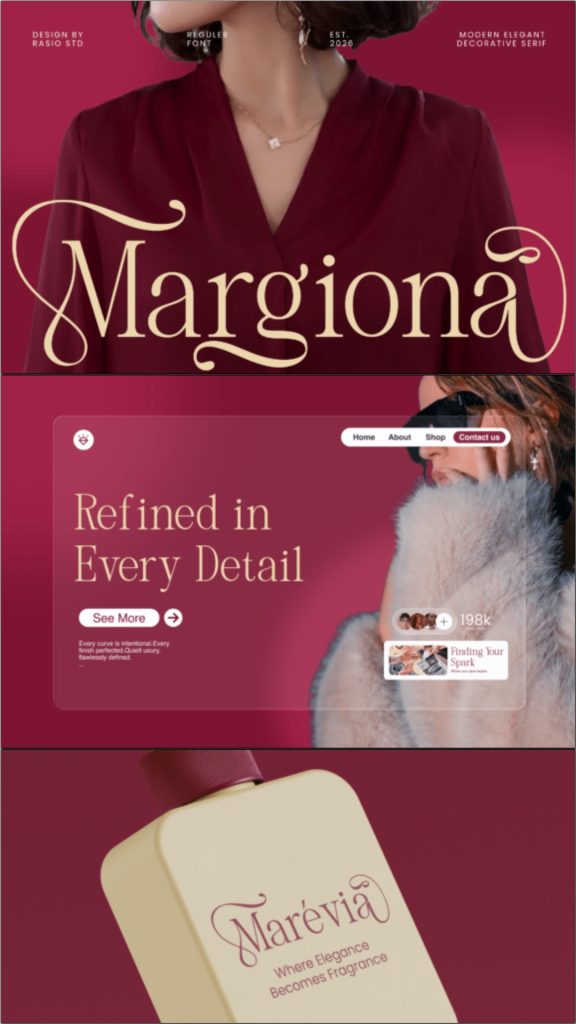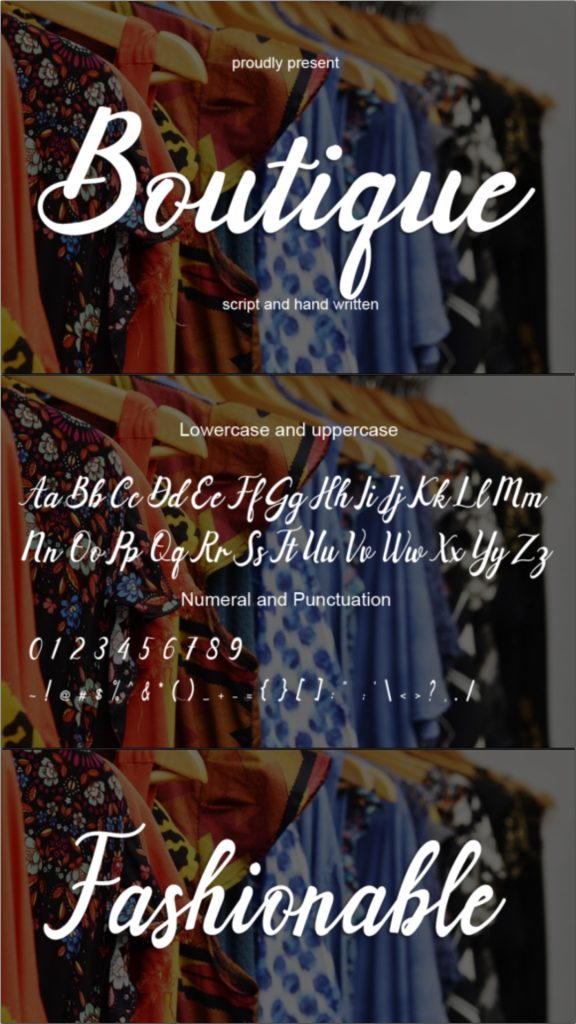
What Makes Fashion Boutique Logo Fonts Look Elegant?
Fashion boutique logo fonts can completely change how a shop feels before someone even looks at the clothes. I always notice this with boutique branding: the logo doesn’t need to be complicated if the typography already carries the right mood.
A refined serif can make a boutique feel expensive. A soft script can feel feminine and personal. A high-contrast display font can give that editorial, fashion-magazine energy. The trick is choosing a font that looks stylish but still stays readable on tags, packaging, storefront signs, Instagram posts, and website headers.
For this list, I focused on luxury logo fonts, elegant serif fonts, feminine logo fonts, boutique branding fonts, and fashion typography that actually makes sense for real fashion shop branding.
12 Fashion Boutique Logo Fonts for Stylish Branding
1. Sivana
Sivana has that polished boutique feel right away. It mixes classic elegance with a modern fashion edge, mostly through its graceful curves, refined serif details, and slightly dramatic letterforms.
I like Sivana for:
- Women’s fashion boutiques
- Bridal fashion brands
- Luxury accessories stores
- Beauty and skincare boutiques
What makes it useful is that it feels upscale without becoming too decorative. Some luxury fonts look beautiful in previews but get messy inside a real logo. Sivana stays fairly clean, especially when given enough spacing.
2. Konxer
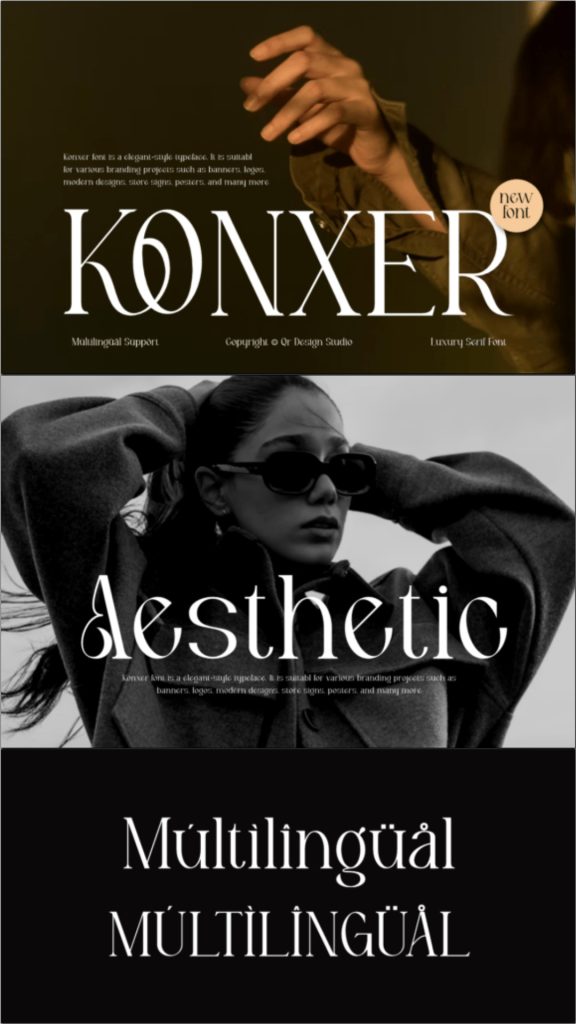
Konxer feels more editorial. It has the kind of high-contrast serif styling you’d expect to see around couture branding, jewelry packaging, or a fashion magazine cover.
Best for:
- Couture fashion houses
- Jewelry boutiques
- Designer clothing brands
- Premium fragrance labels
It’s a stronger personality font, so I’d use it when the boutique needs to feel bold, fashionable, and a little more runway-inspired.
3. Glojean
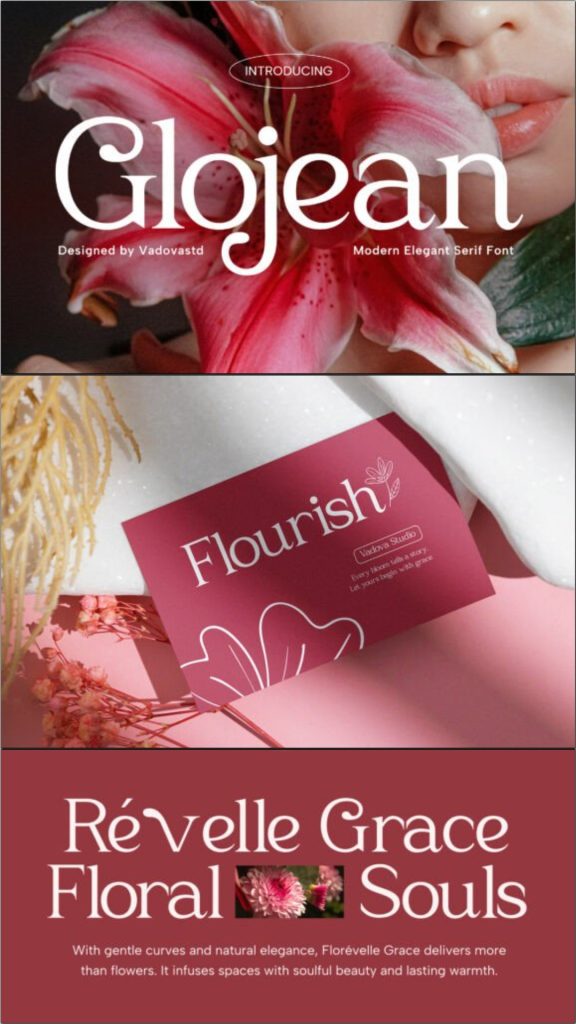
Glojean is softer and more versatile. The letterforms feel elegant, but not overly formal. That makes it a good option for boutique shops that want something modern, feminine, and clean.
I’d use Glojean for:
- Contemporary women’s boutiques
- Lifestyle brands
- Beauty boutiques
- Elegant online fashion stores
It has enough refinement for premium branding, but it doesn’t lock the brand into one very specific style. That’s useful if the shop may expand into accessories, beauty, or lifestyle products later.
4. Glamor
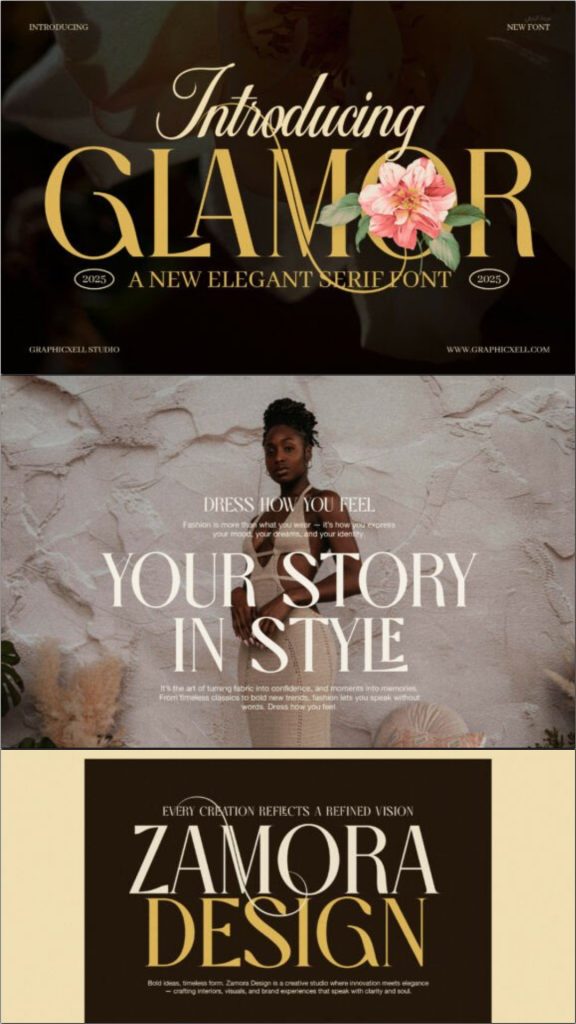
Glamor is definitely more dramatic. The name fits. It has high contrast, elegant curves, and that polished luxury feel that works well for fashion logos with a premium tone.
Perfect for:
- Luxury boutiques
- Fashion editorials
- Designer showrooms
- Premium retail brands
This is more of a display typeface than an everyday font. I’d keep it for the main logo, headlines, packaging accents, or social media graphics rather than long text.
5. Olde Victorian
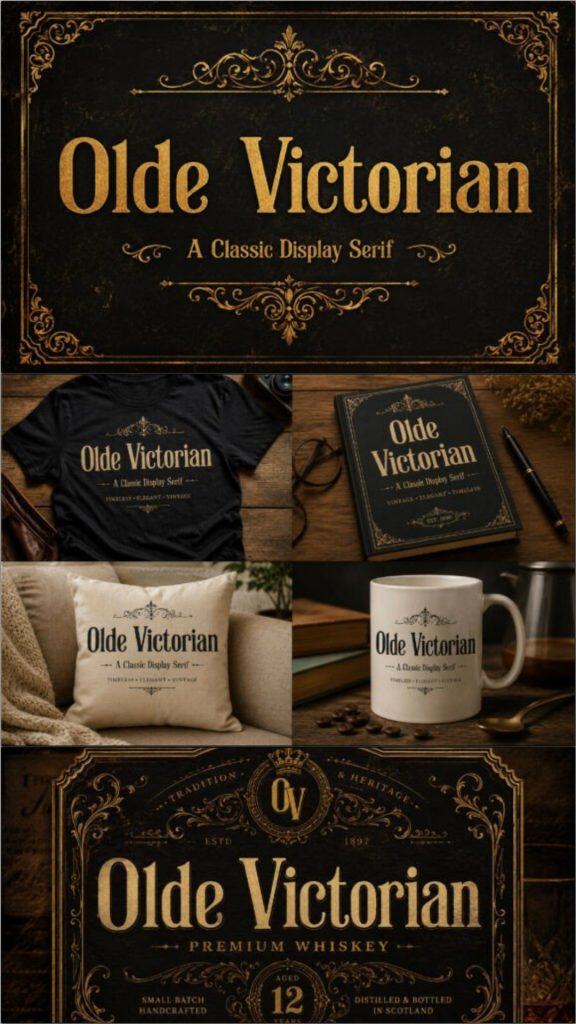
Olde Victorian leans into vintage elegance. It has a heritage feel, which can be beautiful for boutiques built around craftsmanship, tailoring, classic silhouettes, or antique-inspired styling.
Good for:
- Vintage fashion boutiques
- Heritage clothing brands
- Luxury tailoring businesses
- Antique-inspired retail concepts
This kind of font needs careful use. Too much decoration can feel heavy, but in the right logo layout, it creates a strong sense of tradition and character.
6. Velique
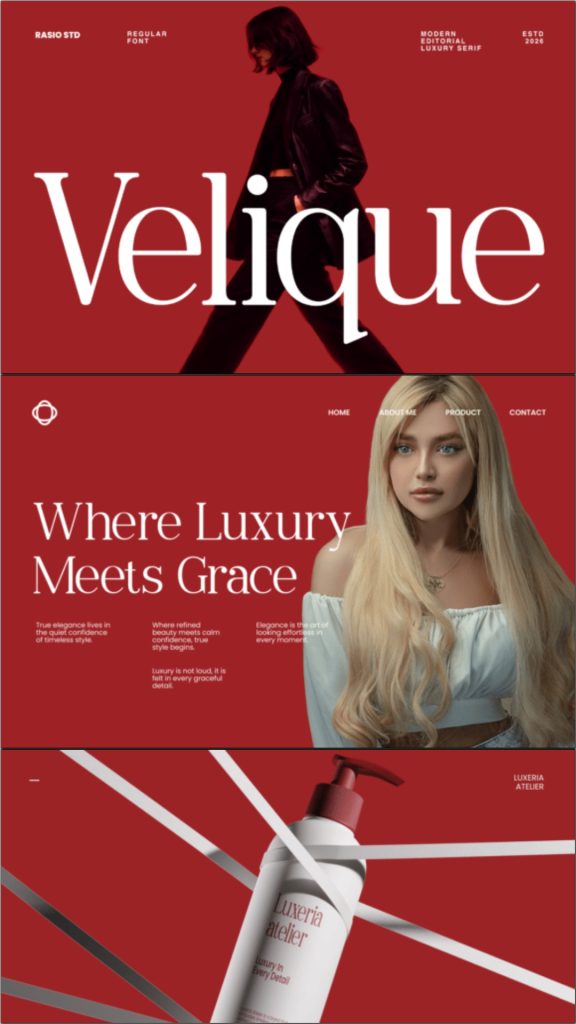
Velique feels clean, modern, and very fashion-focused. It has that luxury serif look without looking too old-fashioned, which makes it especially useful for minimalist boutique branding.
I’d choose Velique for:
- High-fashion boutiques
- Perfume brands
- Luxury cosmetics
- Contemporary fashion labels
It works especially well with generous spacing and simple layouts. Think clean logo, neutral packaging, strong visual hierarchy.
7. Artia Duo
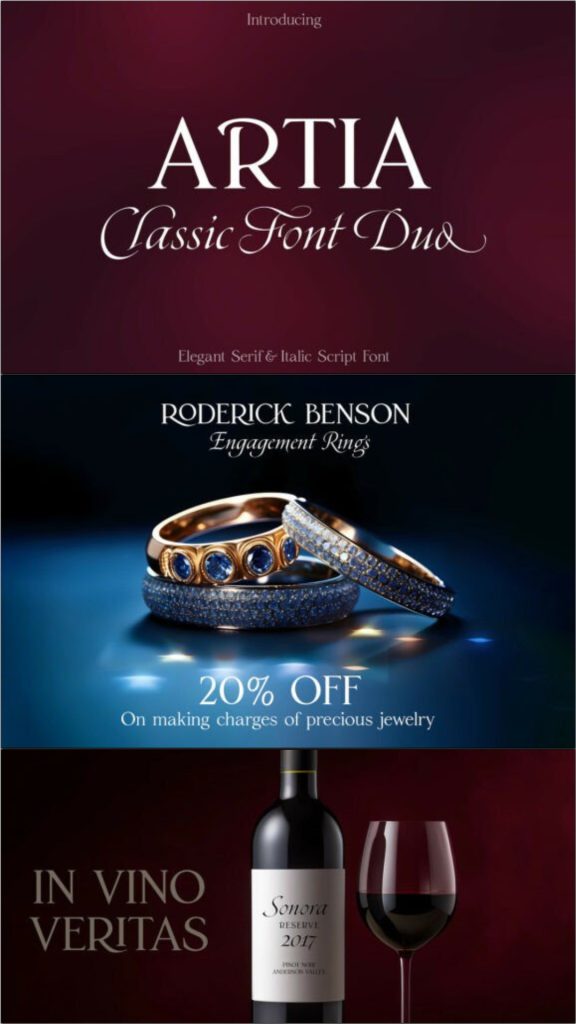
Artia Duo is useful because it gives you more than one mood to work with. The serif brings structure, while the script adds softness and personality.
Great for:
- Boutique clothing stores
- Wedding fashion brands
- Jewelry collections
- Luxury gift shops
Font duos can sometimes look forced, but when the contrast is balanced, they make branding feel more custom. Artia Duo is nice for logos where you want a main brand name plus a smaller tagline or accent word.
8. Amora
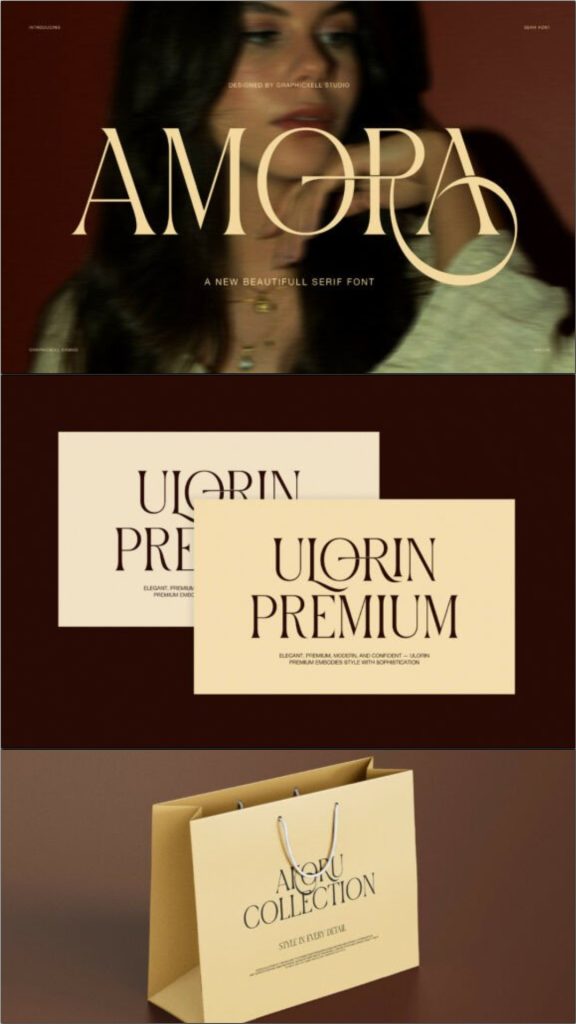
Amora has a confident modern-luxury feel. The contrast in the strokes gives it visual impact, while the overall shape still feels elegant and feminine.
Best for:
- Premium fashion boutiques
- Luxury lifestyle brands
- Designer accessory labels
How many fonts should a boutique logo use?
One font is often enough. If you want more personality, combine a serif font with a script accent, but avoid using more than two typefaces.
Which font is best for a women's clothing boutique?
u003cstrongu003eSivanau003c/strongu003e, u003cstrongu003eGlojeanu003c/strongu003e, and u003cstrongu003eAmorau003c/strongu003e are excellent choices because they balance elegance, readability, and a feminine feel.